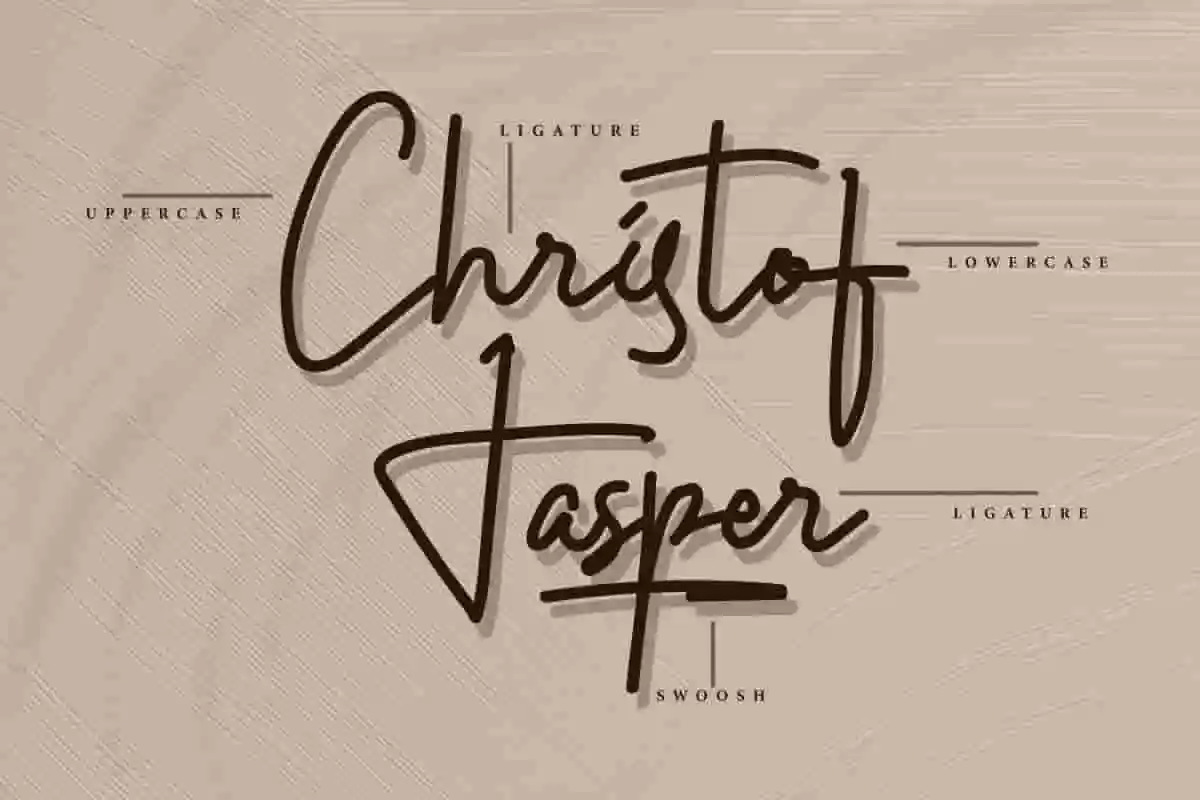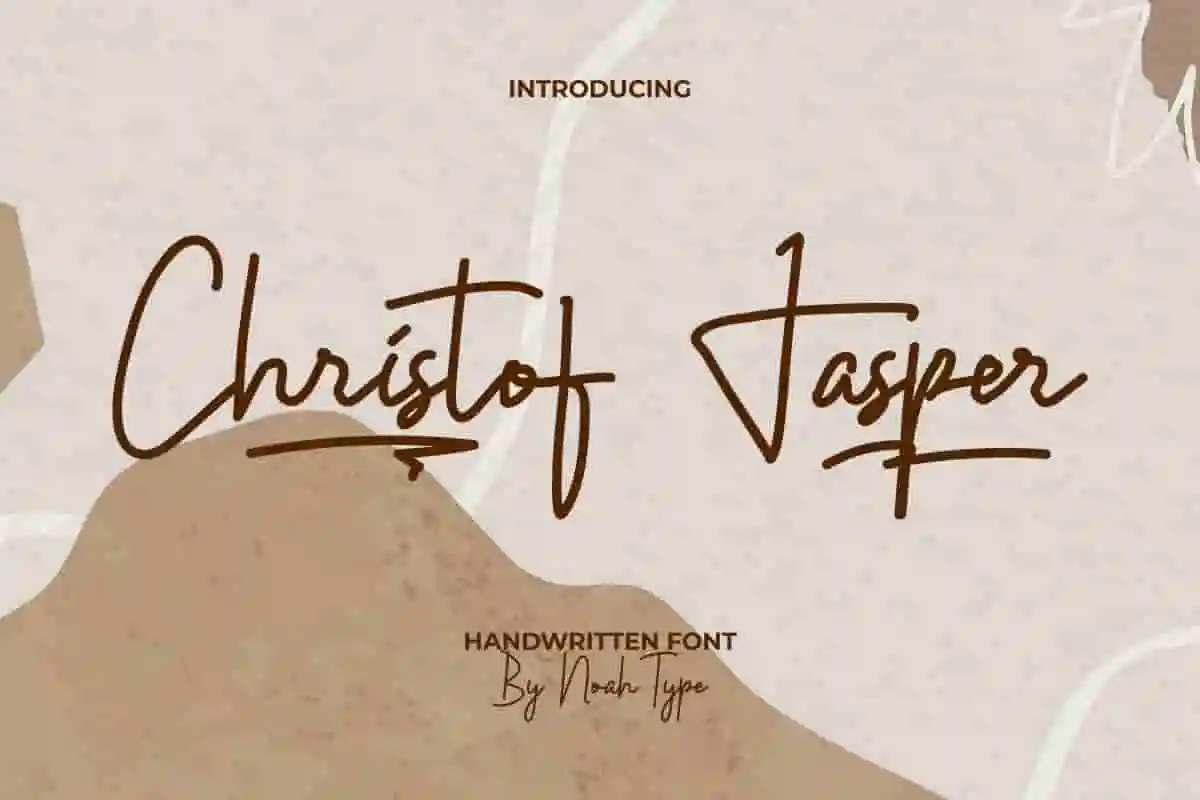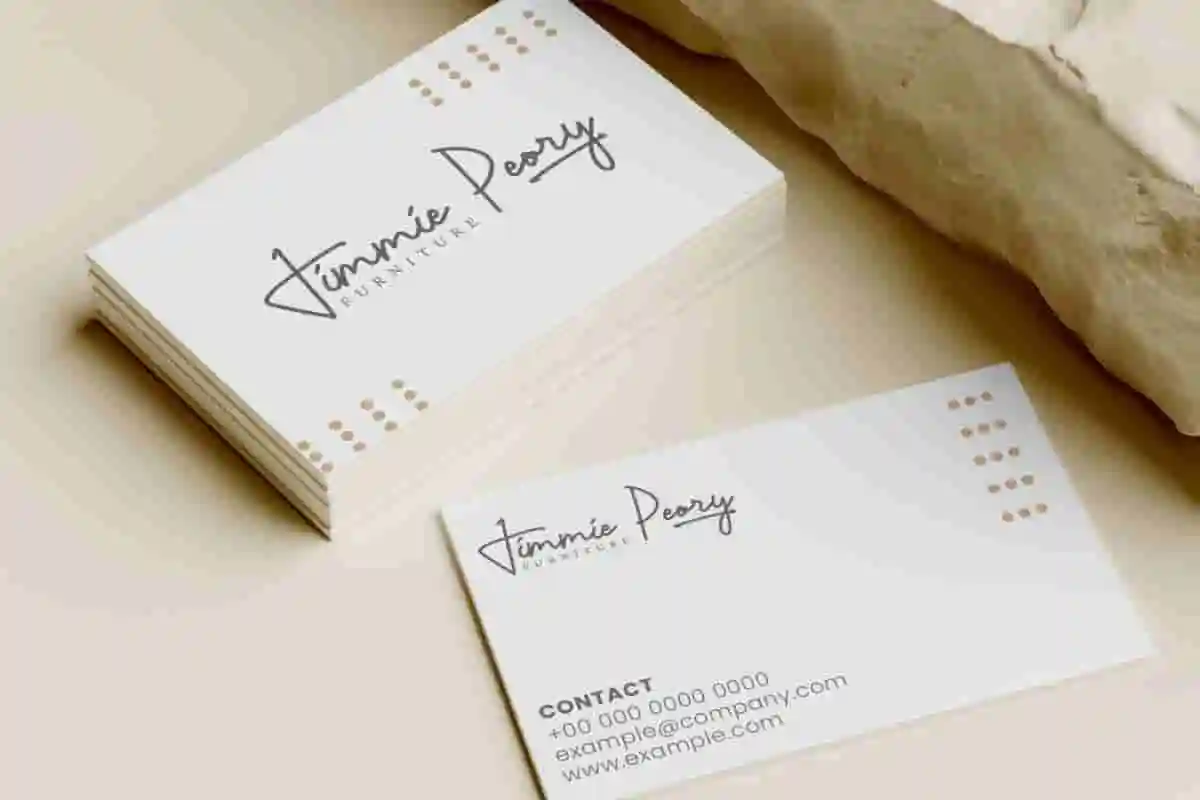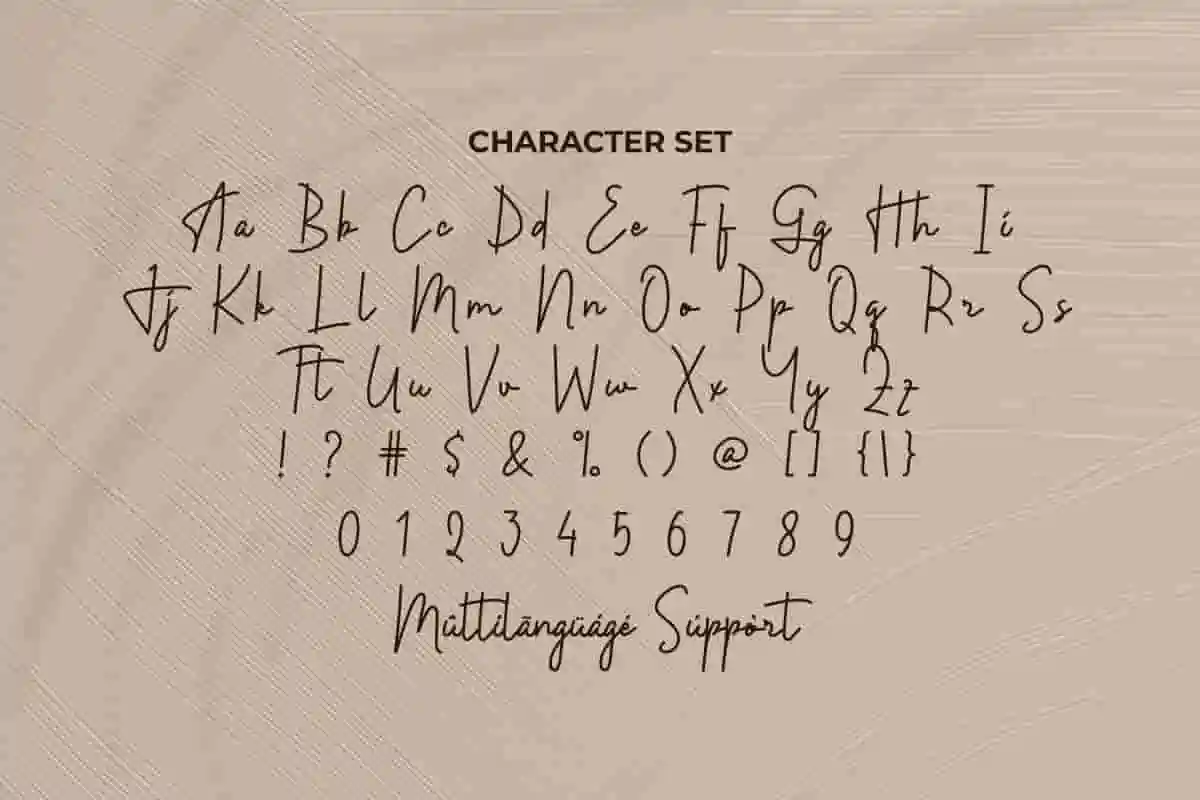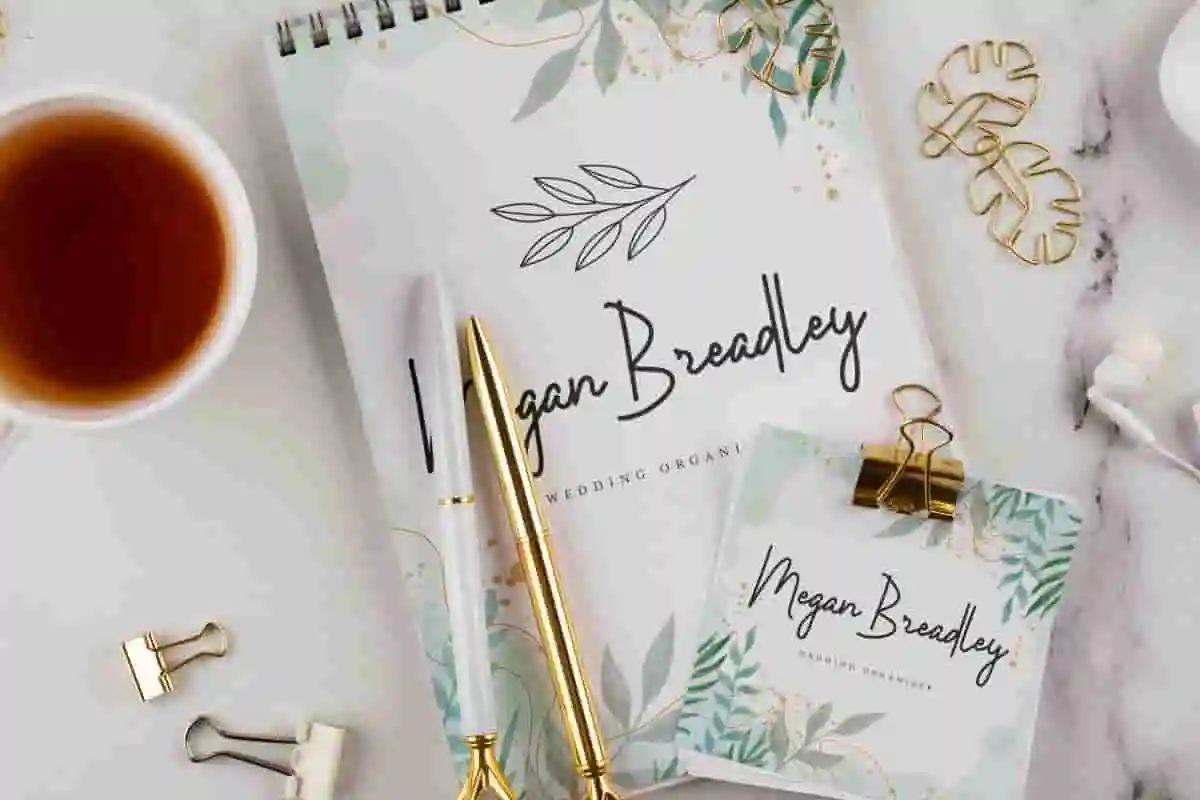
Christof Jasper Font is a simple casual handwritten signature font. The lines in this font seem to be dancing in a casual style and exudes an elegant charm that can still be read easily. It would be perfect for many industry such as cosmetic, fashion, florist, furniture, photography, printing, publishing, wedding organizer, and more!
Christof Jasper Font includes full set of Uppercase and Lowercase Basic Characters, Numerals and Punctuation. Also it contains ligature and swoosh characters to make your designs have a beautiful look and perfect for many projects such as business card, creating logo, headline, invitation, label, magazine, product packaging, quote, signage, stationery, sticker, website etc.
Bring a touch of personal charm and sophistication to your designs with Christof Jasper Handwritten Font. Crafted with precision and love, this font captures the authentic flow of real handwriting, making it the ideal choice for designers, creatives, and brand owners who value elegance and authenticity.
Christof Jasper Font supports multilingual languages (including multiple currency symbols). With a simple installation, it will be ready to use both on Windows machine or Mac. It really common in almost any software (Character Map for Windows and Font Book for Mac). It work well on Adobe software such as Illustrator, Photoshop and several other software.